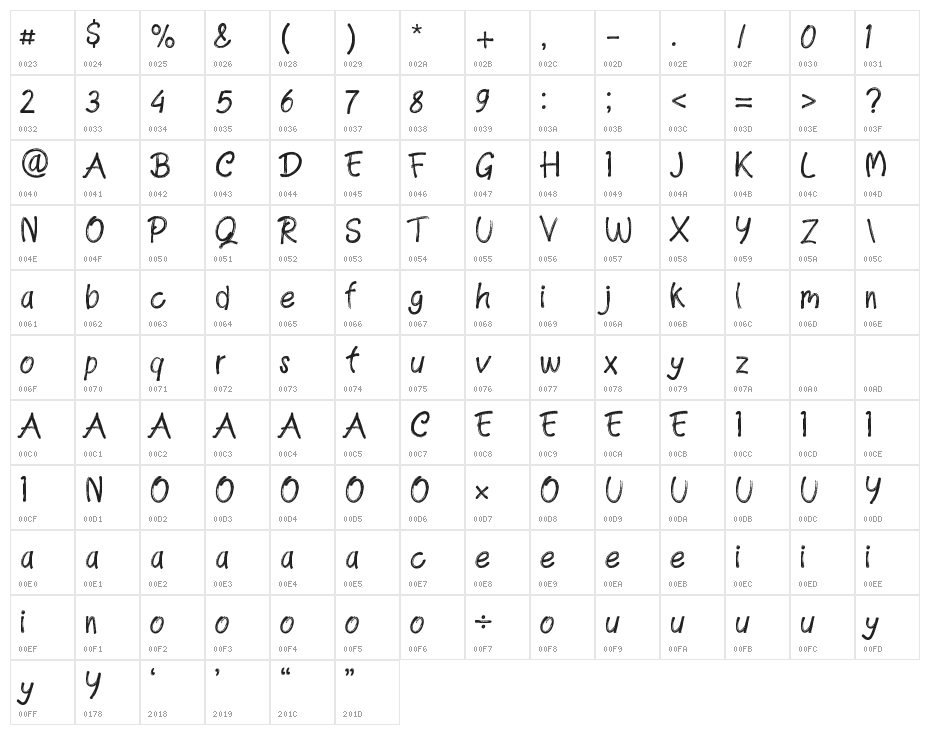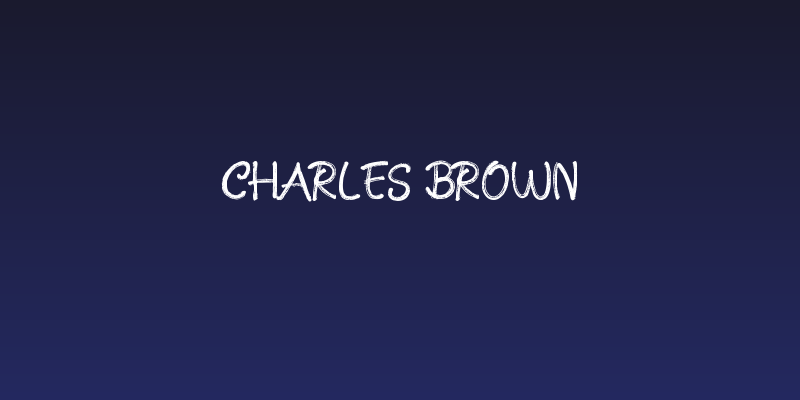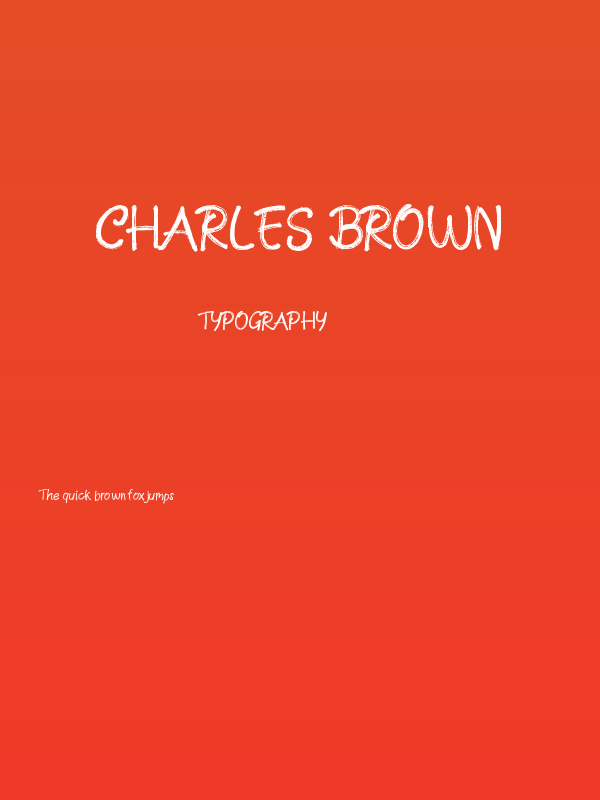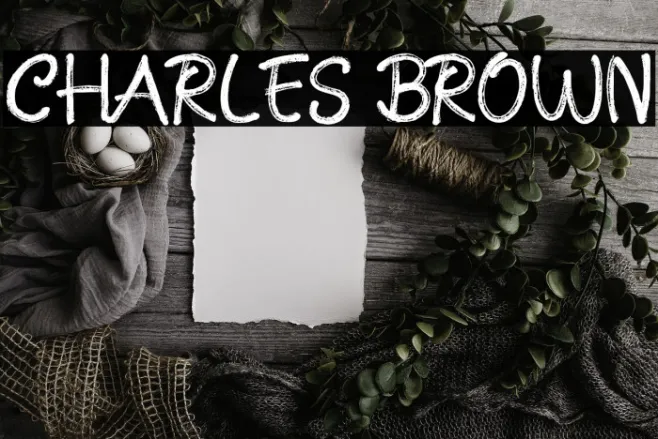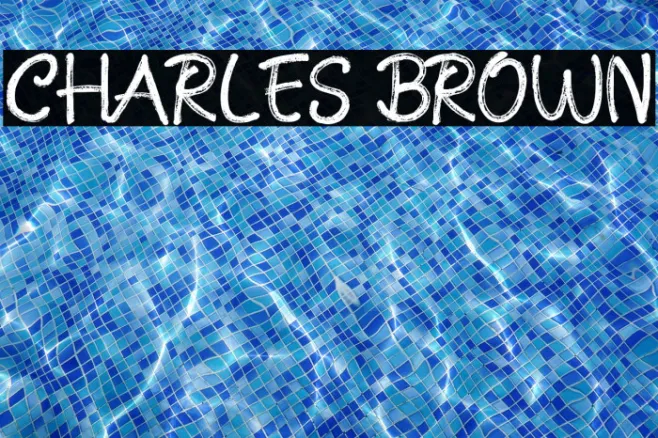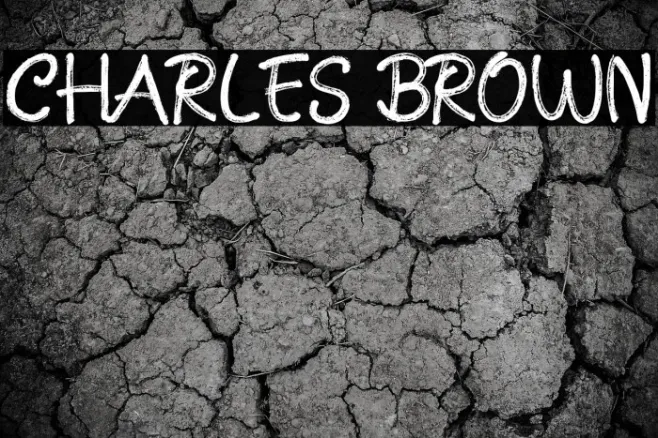
CHARLES BROWN Font
CHARLES BROWN Description
This font features a playful, handwritten style with a textured appearance that mimics the look of chalk or crayon on paper. The letters are slightly irregular, giving it a casual and informal feel. Uppercase and lowercase letters maintain a consistent style, with rounded edges and a slight slant that adds to its dynamic character. Numbers and special characters are designed to match the overall aesthetic, ensuring a cohesive look across all text elements. The font's unique texture and lively form make it stand out, ideal for projects that require a touch of creativity and personality.
| Proposed Projects | Ideal for children's books, playful branding, creative posters, and informal invitations. |